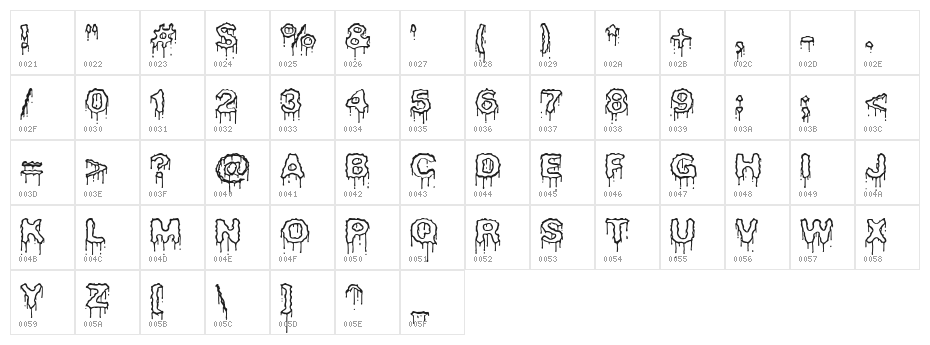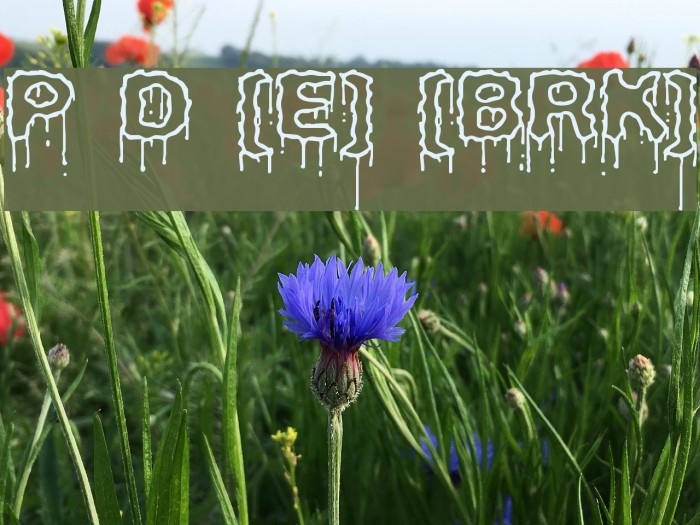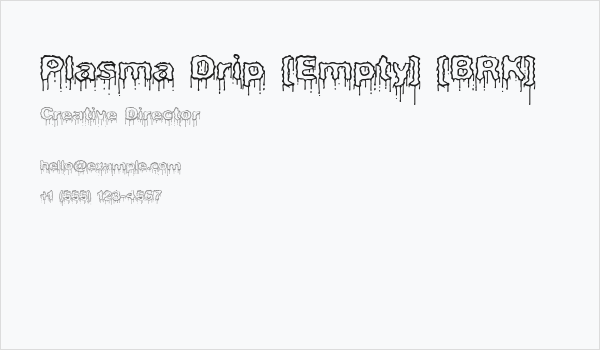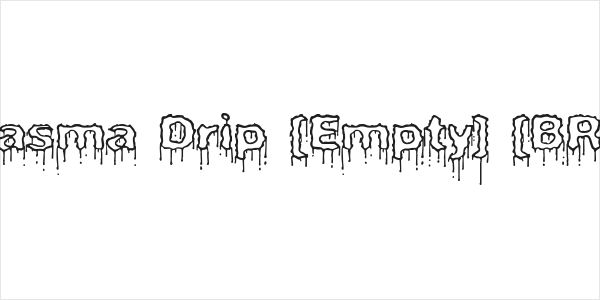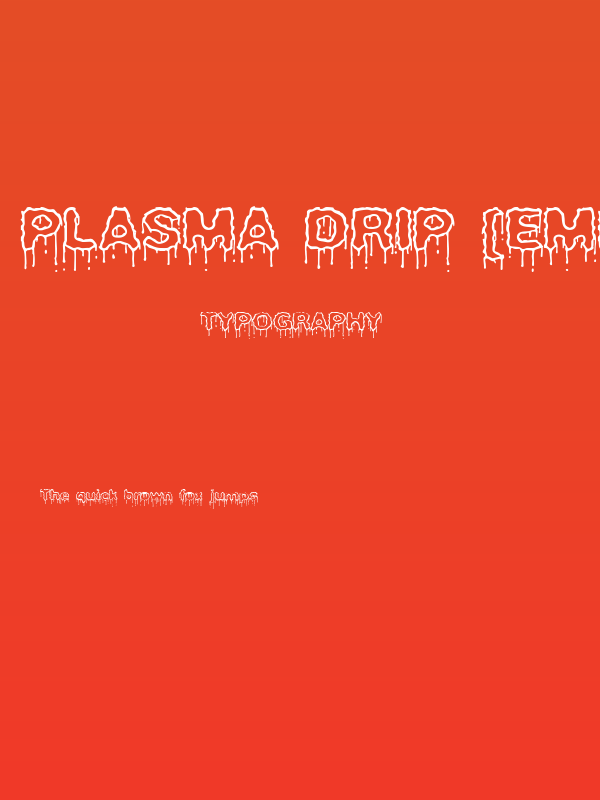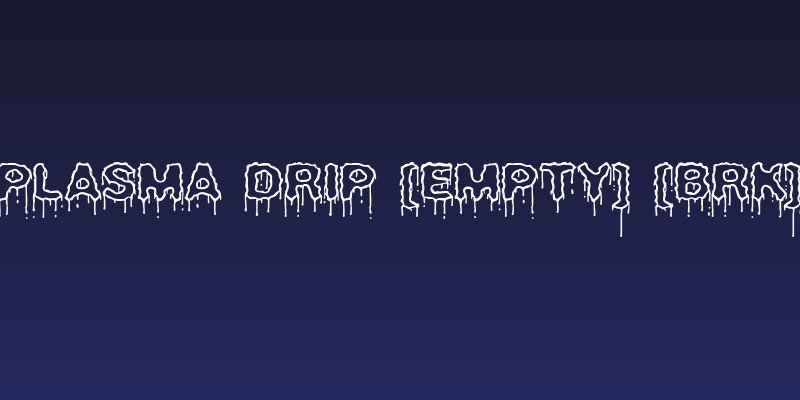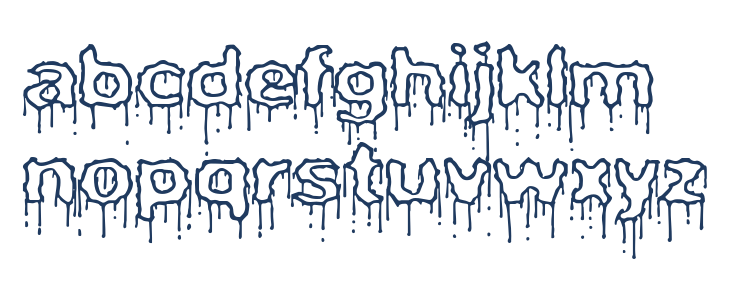
Plasma Drip [Empty] [BRK] Font
Plasma Drip [Empty] [BRK] Description
This font features a unique and eye-catching design with letters that appear to be dripping, reminiscent of liquid or plasma. The characters have a bold and playful style, with each letter exhibiting a distinct dripping effect that adds a sense of movement and fluidity. The uppercase and lowercase letters, as well as numbers and special characters, maintain this consistent dripping motif, making it ideal for creative and unconventional design projects. The font's playful yet edgy appearance makes it suitable for themes related to horror, Halloween, or any project that requires a dramatic and artistic touch.
| Proposed Projects | Perfect for Halloween-themed graphics, horror movie posters, edgy branding, or artistic event invitations. |